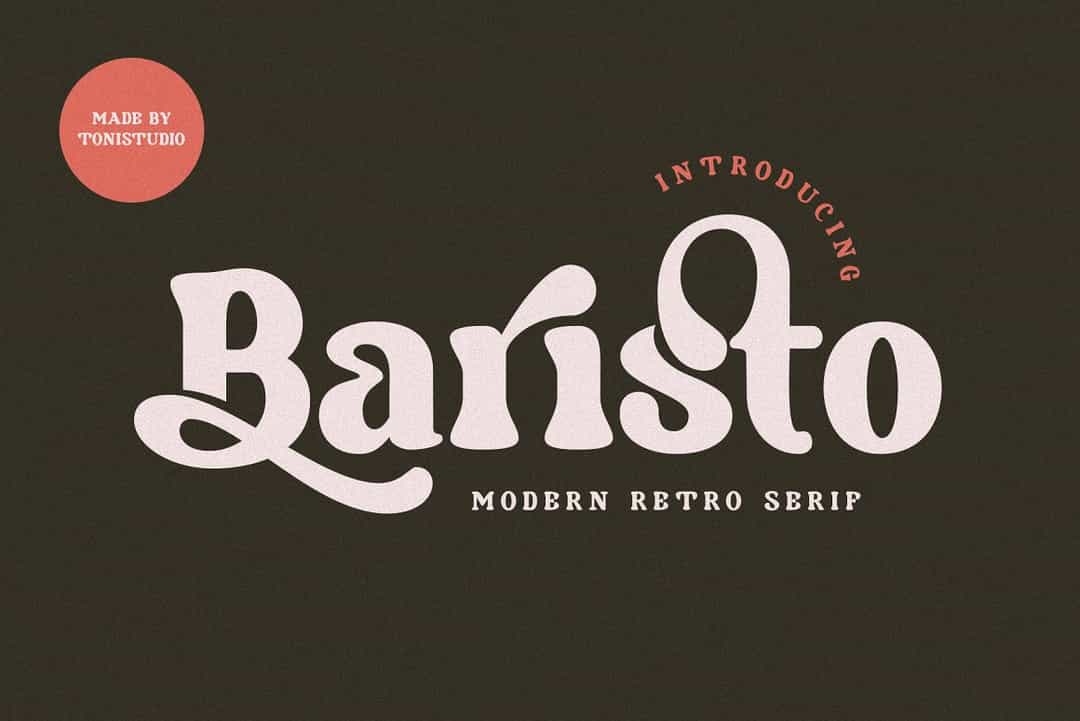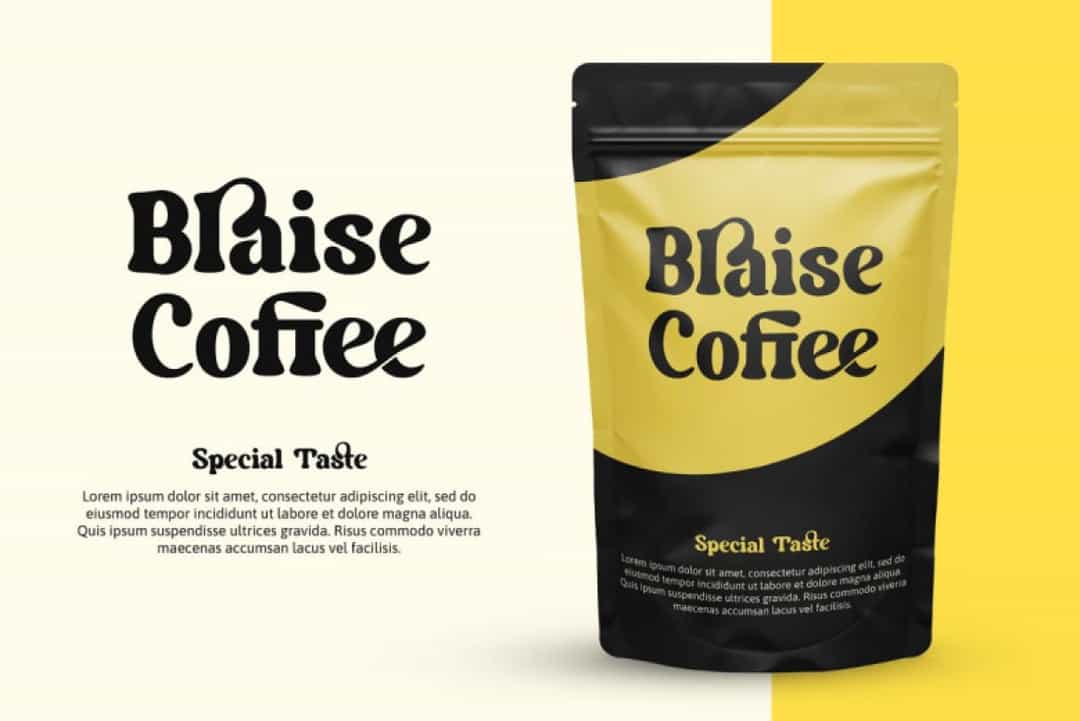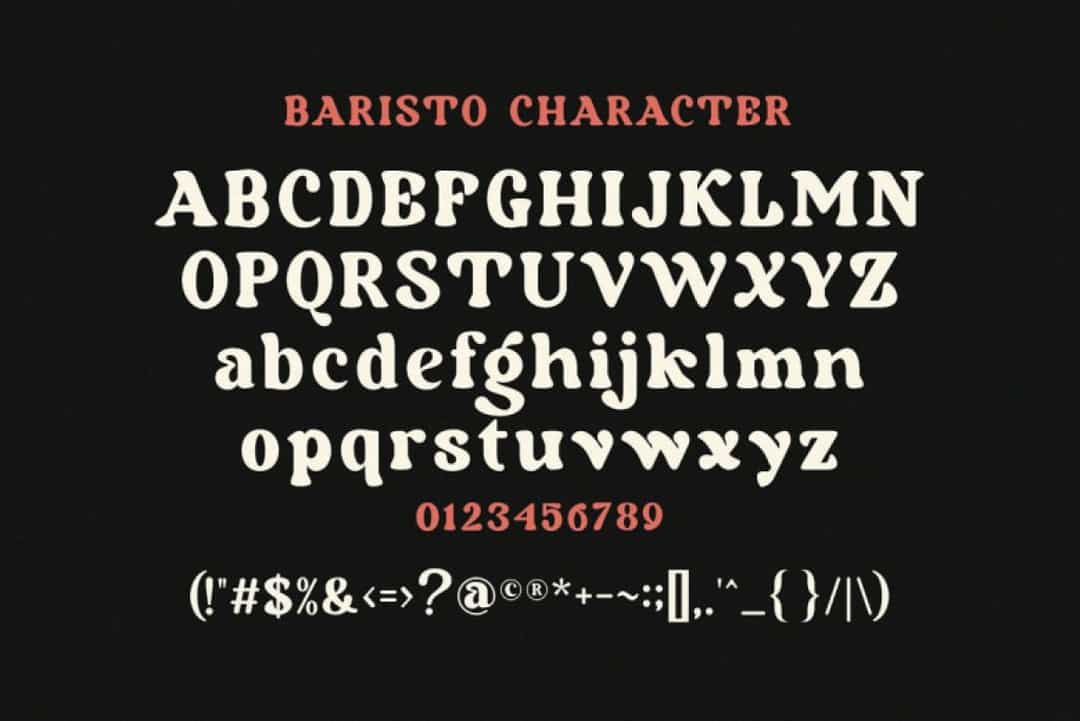
Baristo is an amazing modern vintage Retro serif typeface which can transform beautiful binders and other styles, as well as fill in any gaps between serif lines. Boasting stunning styles and ligatures this font is your ideal choice for text or display types.